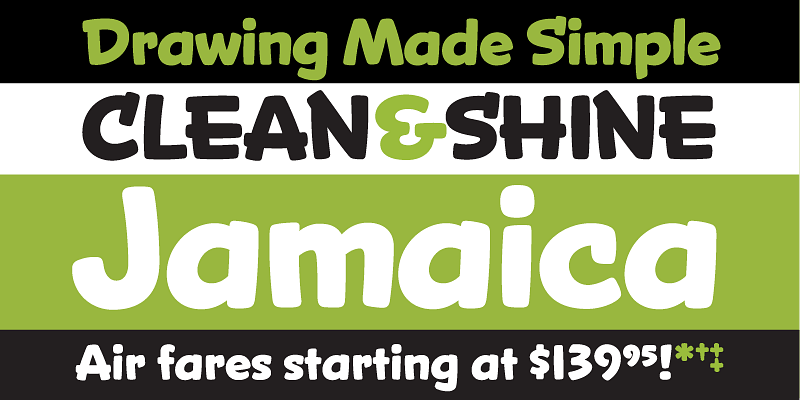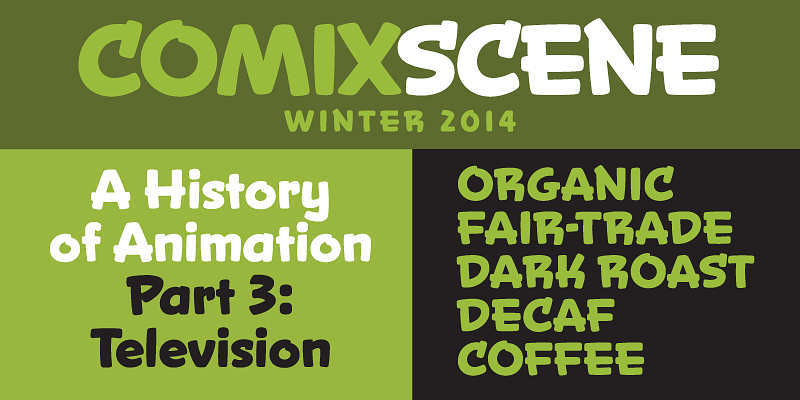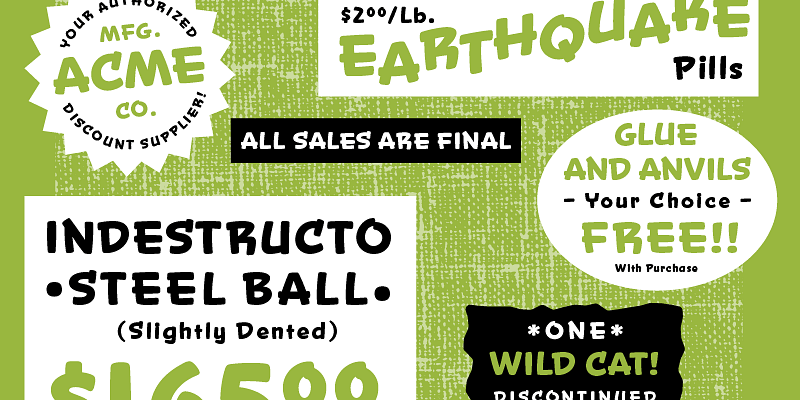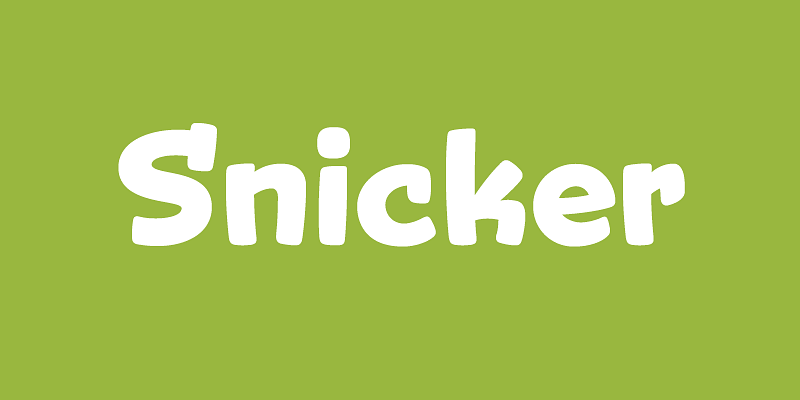
Snicker (2007) is a playful 1940s-style brush-lettered sans serif, inspired by hand-lettered titles in Fleischer Brothers’ Superman cartoon series. Although I used that as a starting point, there was much room for interpretation, and many characters had to be invented. Currently, Snicker has only one weight, Bold, but I hope one day to add more weights and create a more versatile family. Snicker was designed along side of and released with another Fleischer Brothers-inspired design, Kinescope.